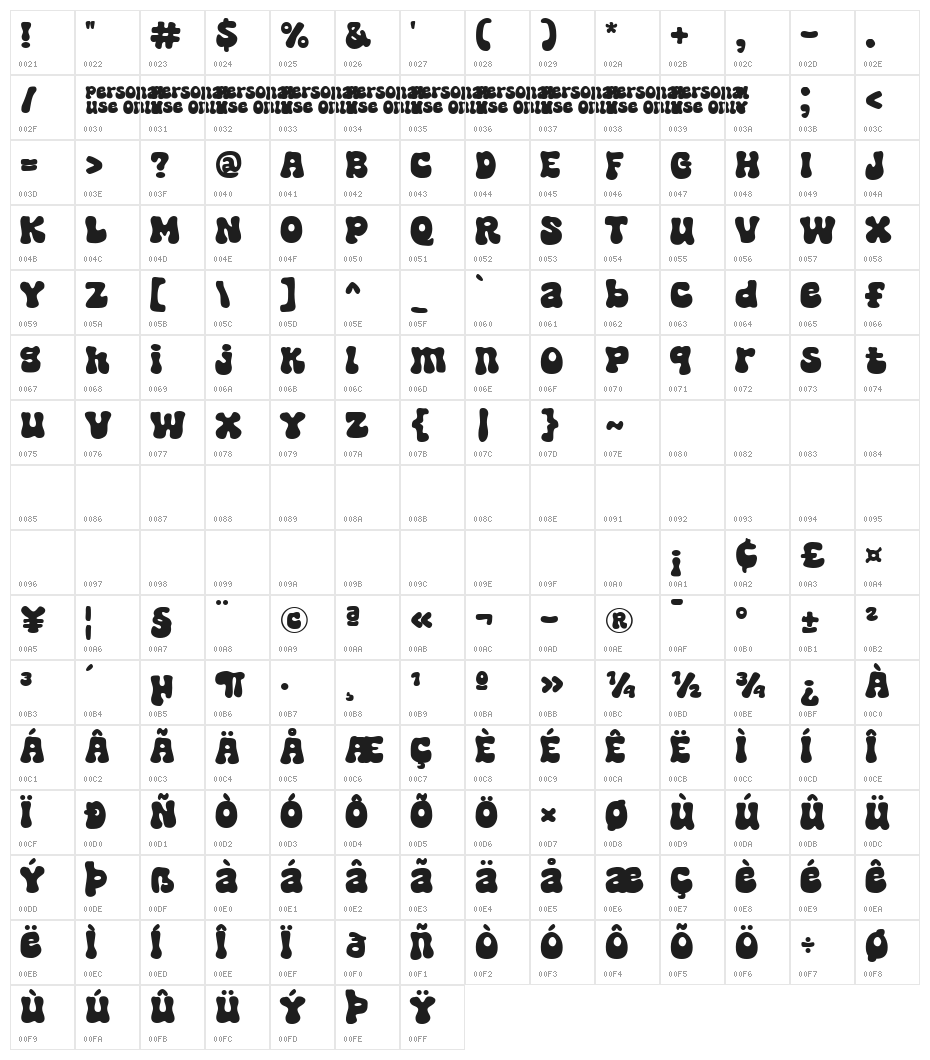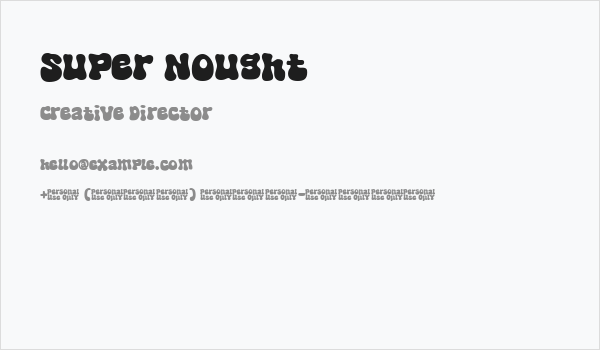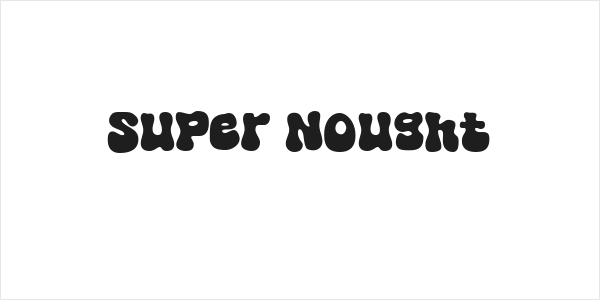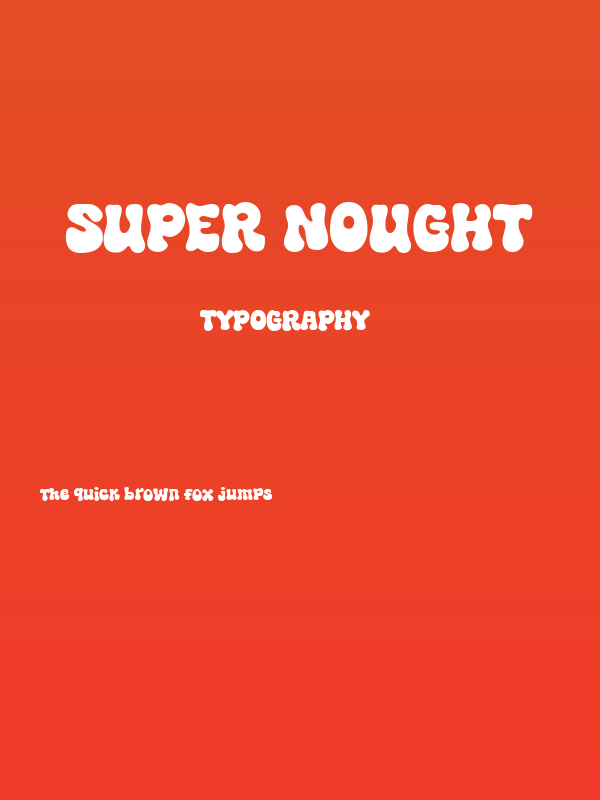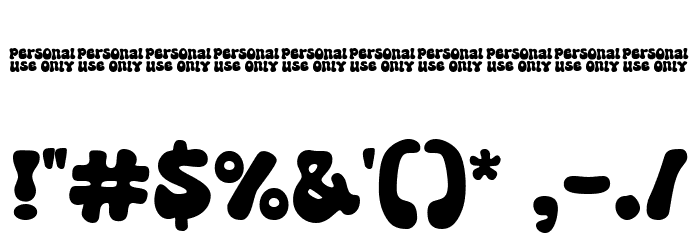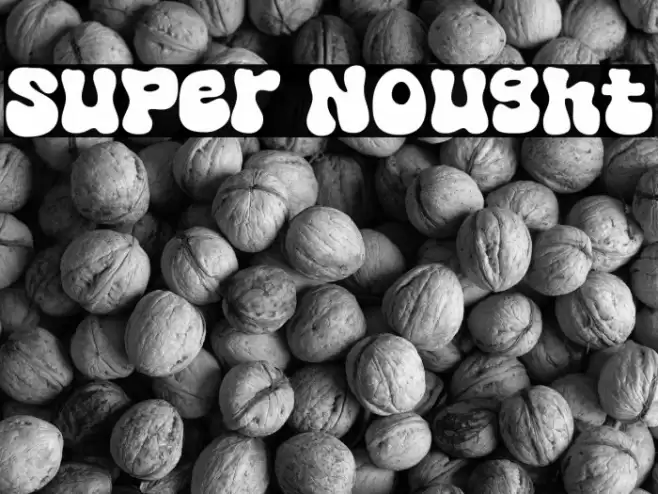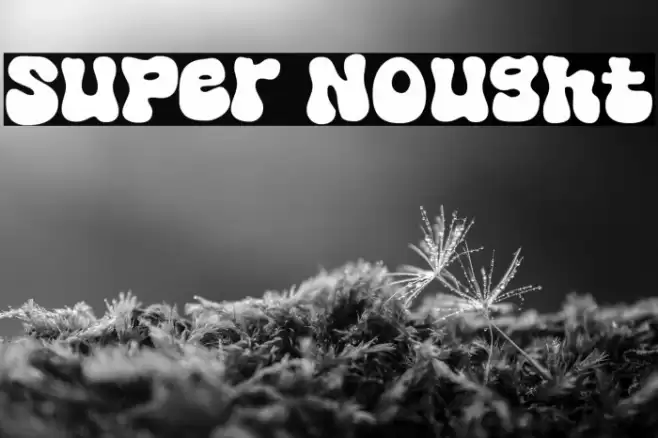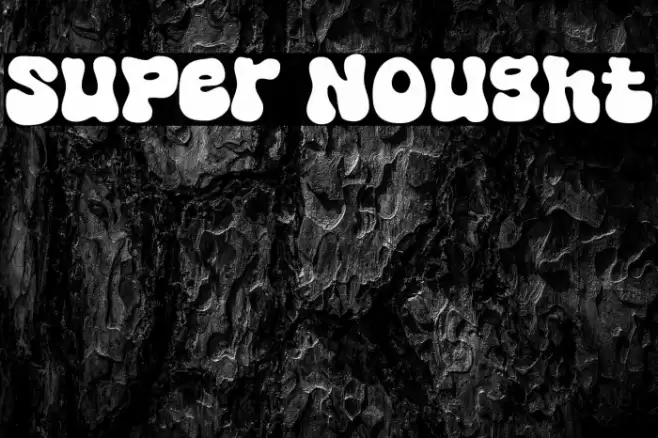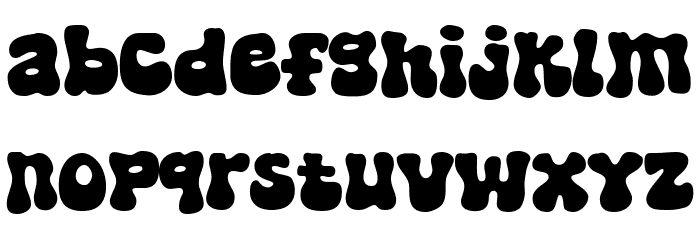
Super Nought Font
Super Nought Description
This font features a bold, playful design with thick, rounded shapes that give it a bubbly and whimsical appearance. The characters are heavily weighted with a consistent thickness throughout, creating a cohesive and impactful look. The style is reminiscent of retro or psychedelic aesthetics, making it ideal for designs that aim to capture a sense of fun and nostalgia. The uppercase and lowercase letters maintain a uniformity in style, with the lowercase letters being slightly smaller but equally bold. The numbers and special characters follow the same design principles, ensuring a harmonious overall appearance.
| Overall Style | Retro, Playful |
| Proposed Projects | Ideal for poster designs, children's book covers, playful branding, and retro-themed projects. |